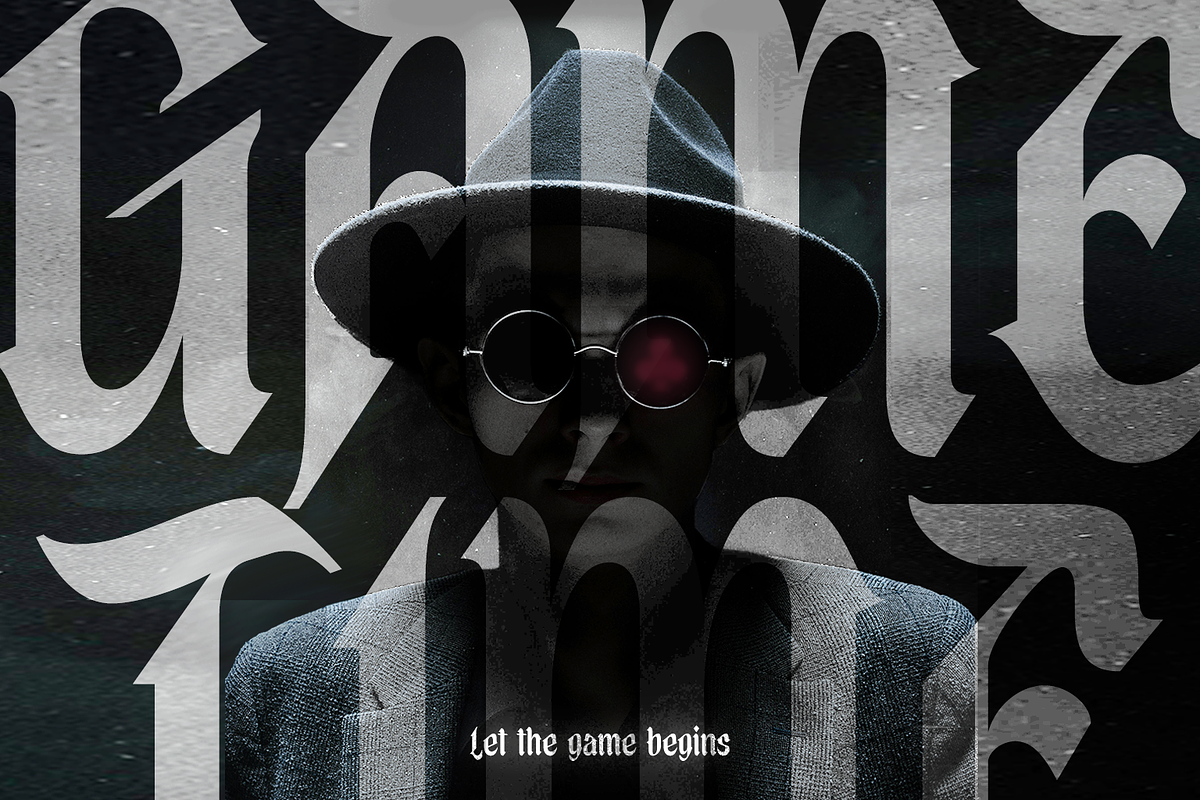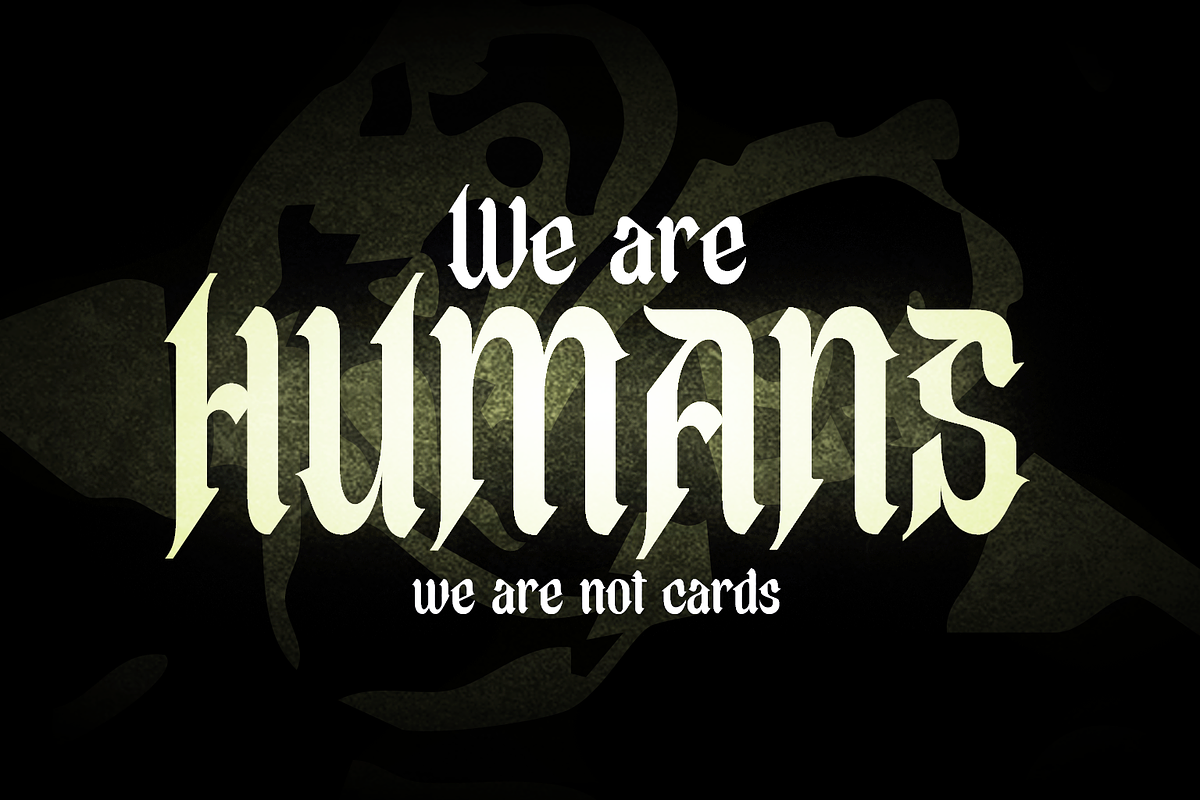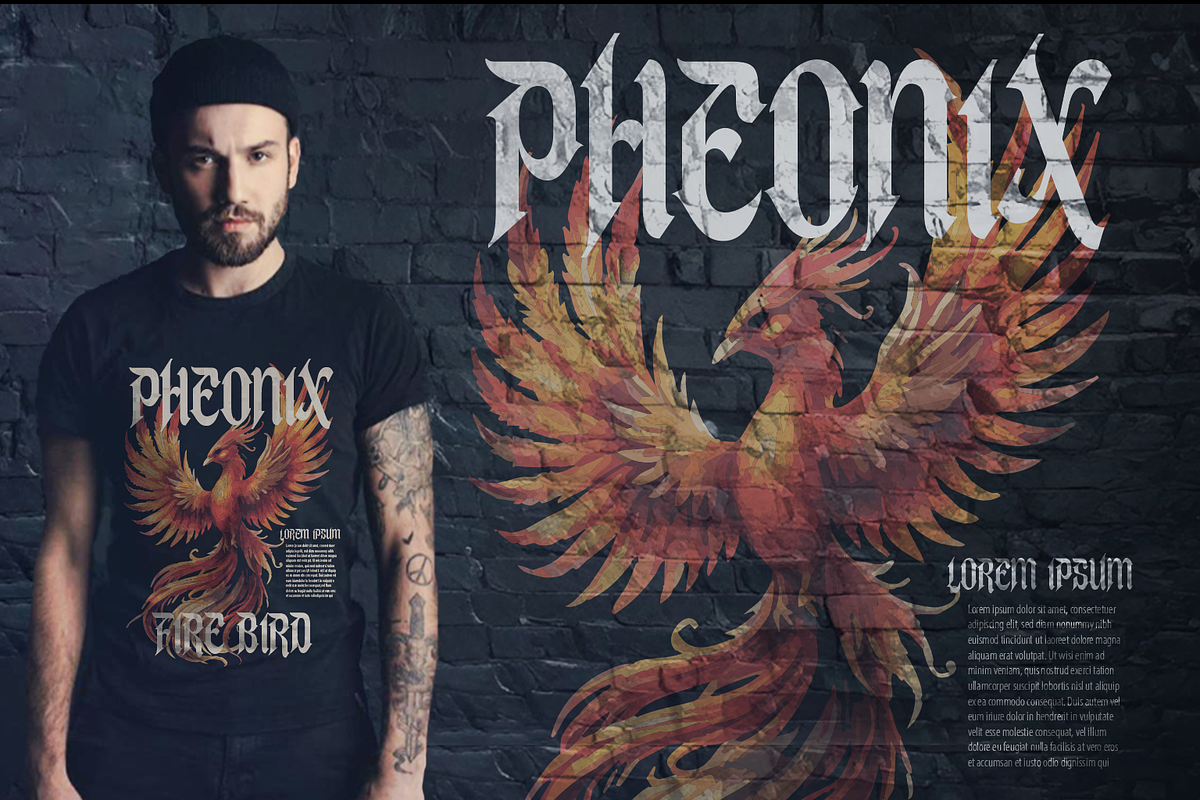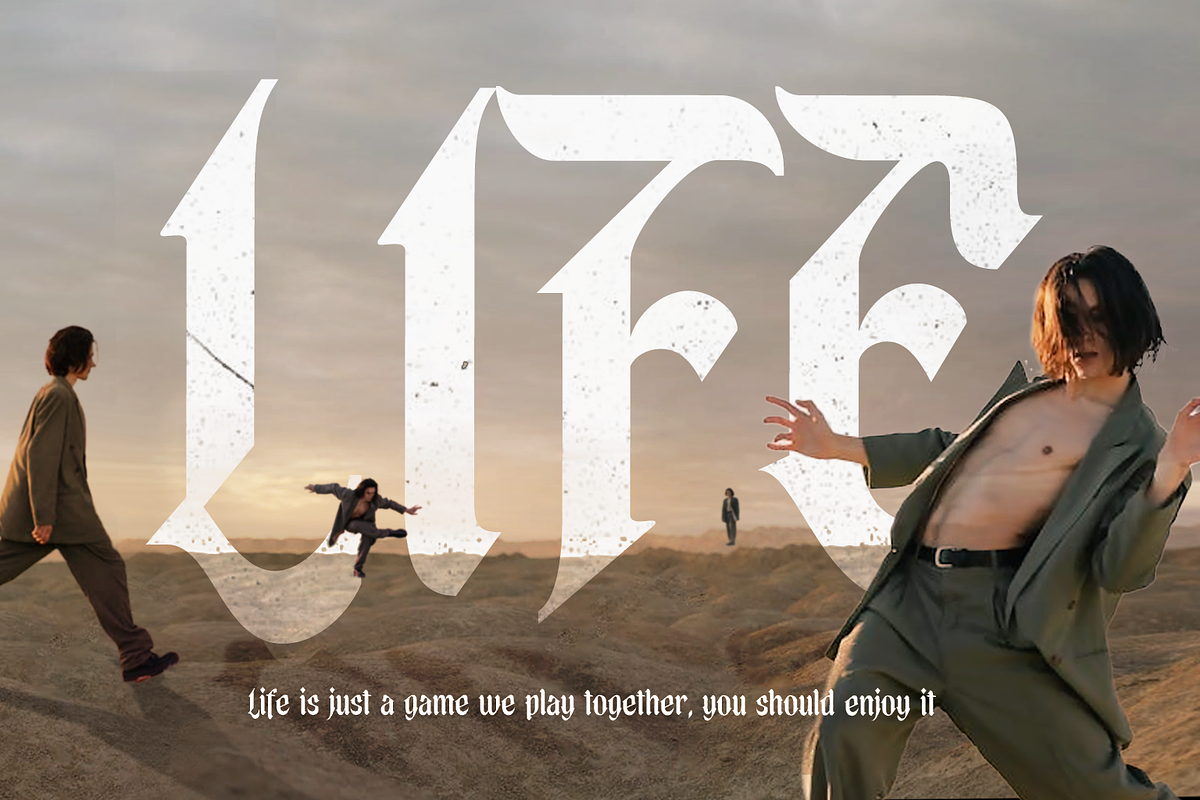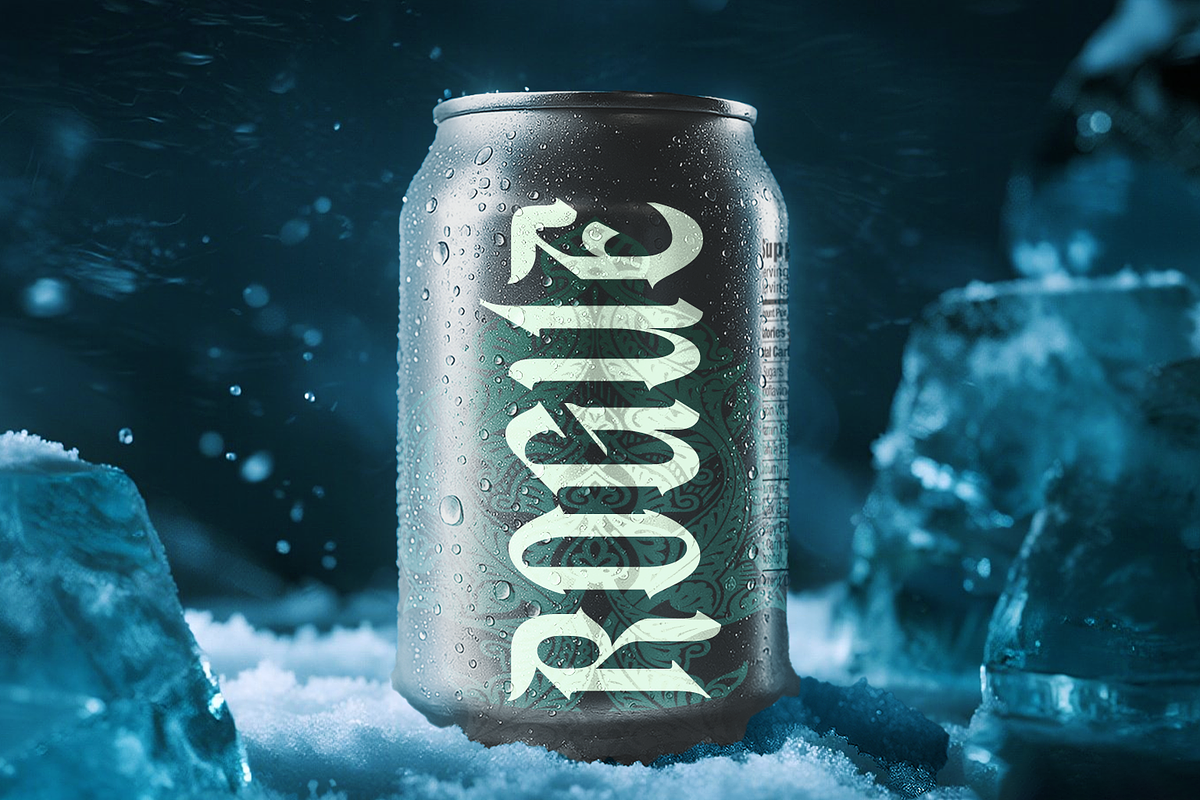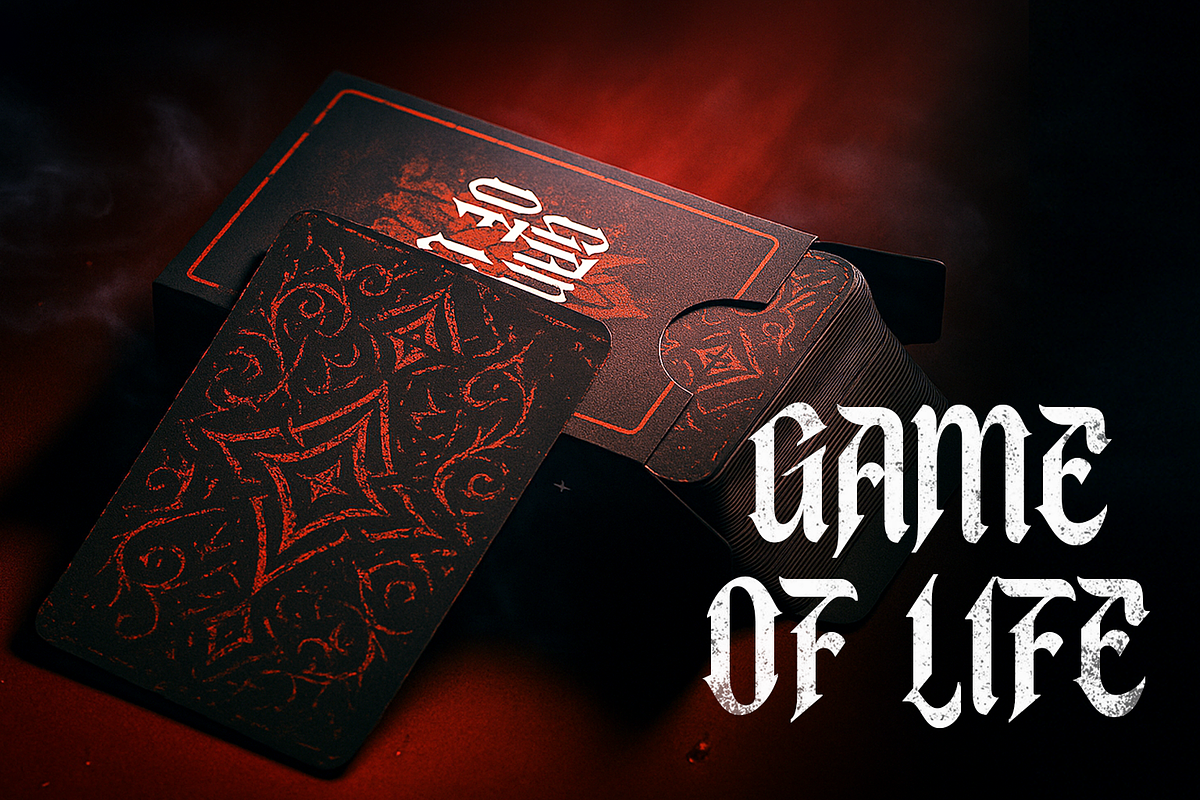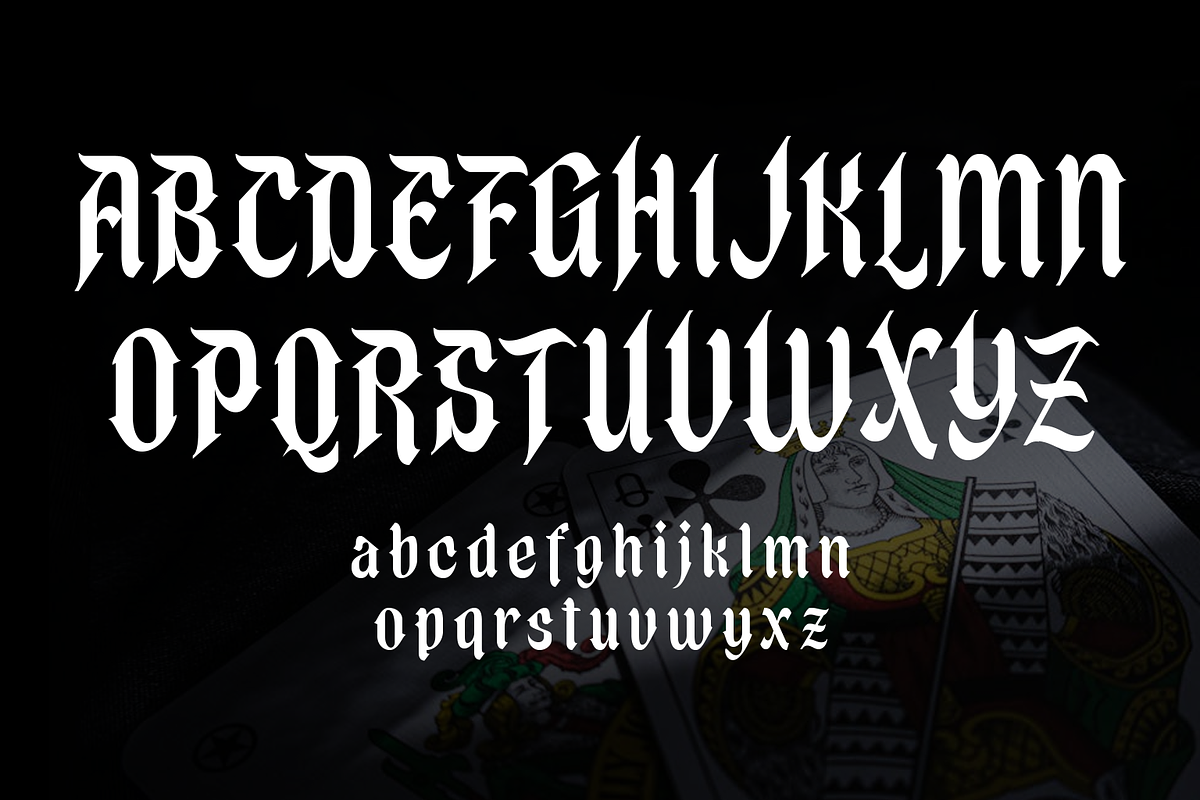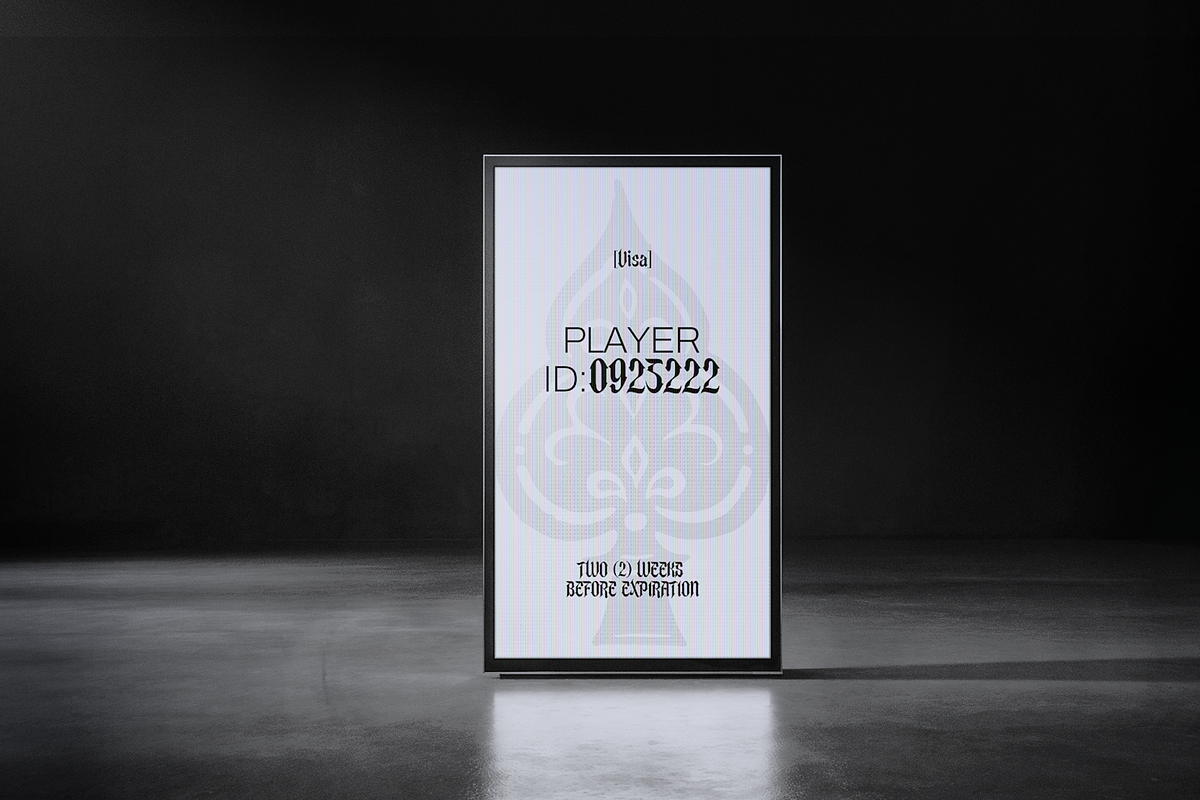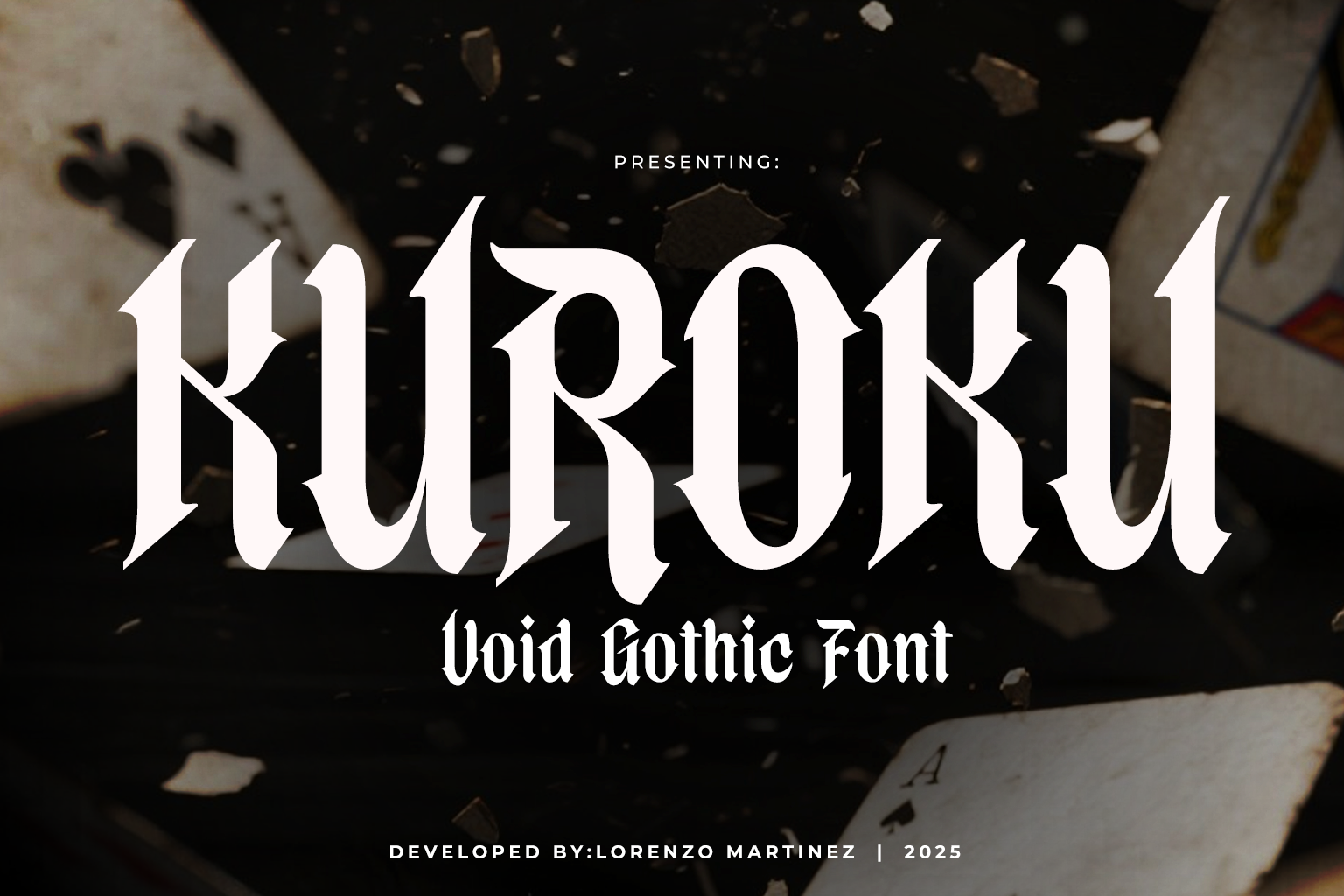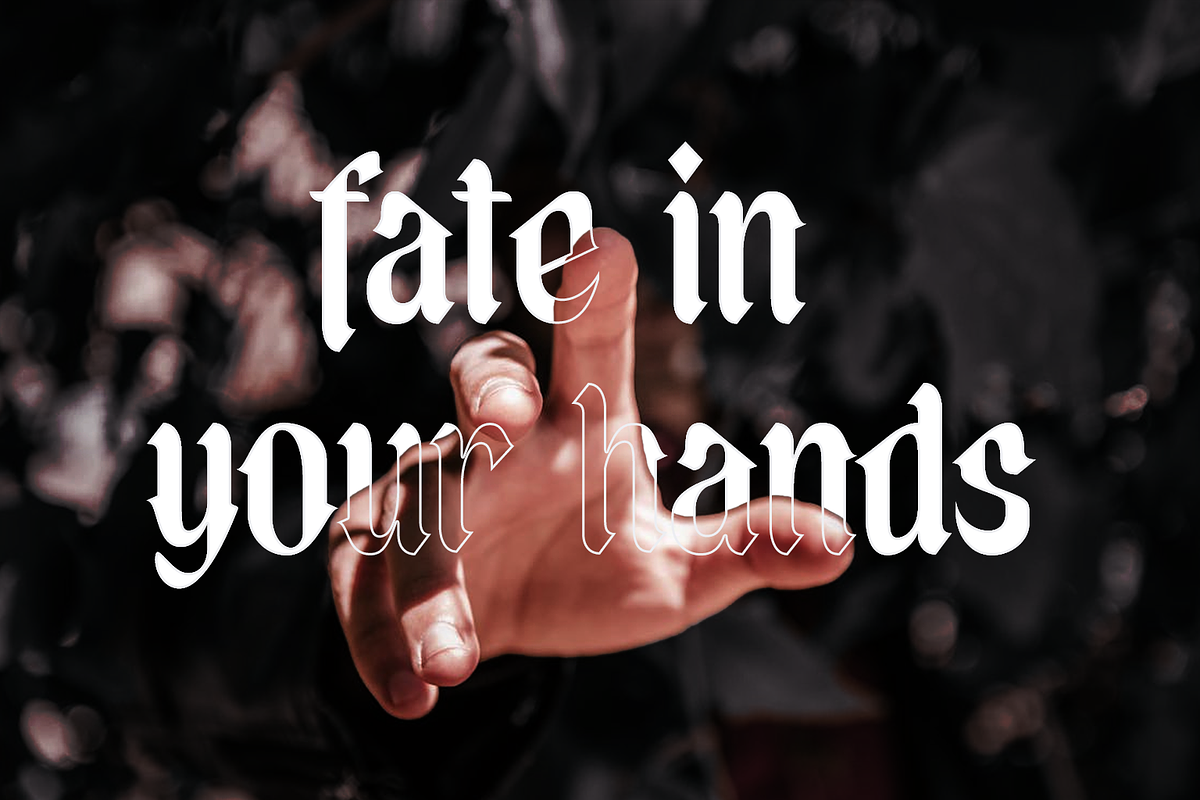
Kuroku – Void Gothic Typeface
Kuroku – Void Gothic Typeface Kuroku is a bold blackletter font designed for impact. Inspired by the dystopian mood of Alice in Borderland, it combines gothic tradition with a modern, cinematic edge. The name means “black void,” capturing the dark, mysterious energy that defines its style. With its towering strokes, sharp edges, and heavy contrast, Kuroku is perfect for projects that need to stand out with power and intensity. Whether you’re designing for branding, posters, music, apparel, tattoos, gaming, or cinematic titles, this font gives your work a striking, unforgettable presence. What’s Included: - Latin Characters - Multilanguage support OTF Perfect for: - Gothic; medieval-inspired design - Horror, dystopian, and cyberpunk projects - Gaming, film, and music branding - Logos, posters, and apparel design Bring the mystery of the void into your design with Kuroku! A void-gothic typeface that merges dark elegance with gothic strength.